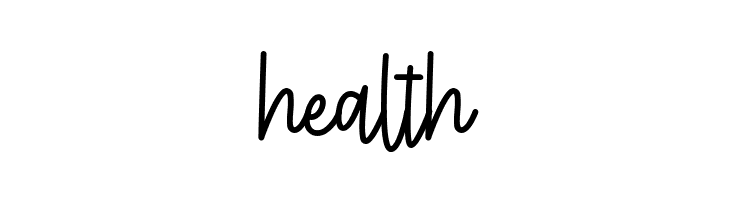
A bold, geometric font with a futuristic and modern design.
A charming script font with elegant, flowing characters and medium contrast.
An elegant script font with flowing, cursive lines and sophisticated curves.
A cursive, handwritten-style font with elegant, flowing characters.
A dynamic brush script font with expressive, fluid strokes and a hand-drawn appearance.
A flowing, cursive script font with elegant loops and flourishes.
A bold, modern font with rounded edges and geometric design.
A bold, italic script font with a modern and fluid style.
A playful, cursive font with connected letters and a consistent stroke thickness.
A modern, hollow font with geometric shapes and rounded edges.
A modern, hollow, inverse font with geometric and minimalistic design.
A modern, futuristic font with clean lines and geometric shapes.
A modern, geometric font with clean, rounded lines and consistent stroke width.
A graceful script font with flowing, connected strokes and a handwritten feel.
A playful, bold font with hand-drawn, irregular letterforms.
An elegant and decorative cursive font with intricate swashes and loops.
An elegant, flowing script font with bold, italicized strokes and ornate flourishes.
A playful, hand-drawn font with whimsical, uneven strokes.
A lively, expressive handwritten font with fluid strokes and dynamic movement.
An elegant, flowing script font with a natural handwritten style.
A decorative, spiderweb-themed display font with hand-drawn, irregular strokes.
A bold, geometric font with a modern and assertive style.
A playful handwritten font with rounded characters and consistent stroke width.
A fluid and elegant handwritten script font with a dynamic flow.
A bold, cursive font with elegant, interconnected characters and dramatic flourishes.
A bold, retro font with playful curves and a vintage flair.
A modern sans-serif font with playful circular elements and geometric design.
A fluid and expressive handwritten font with thin, elegant strokes.
A bold, expressive handwritten font with brush-like strokes and dynamic flow.
A bold, modern font with thick strokes and rounded edges, perfect for impactful headlines.
A playful and bold font with irregular, dynamic letterforms.
A bold, playful handwritten font with rounded, irregular characters.
An elegant, flowing script font with intricate loops and high contrast.